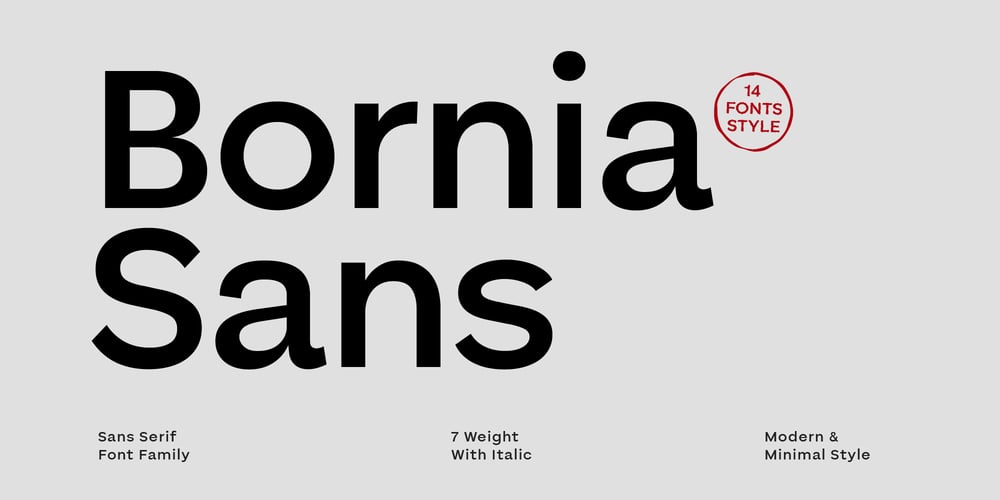
Bornia
Bornia font
Bornia Font Family was designed by abdul artega and published by Yukita Creative. Bornia contains 14 styles and family package options. Introducing the Bornia Sans Serif Modern Minimal Font Family – a typeface that exudes sophistication and simplicity. This is a font that exudes a contemporary feel and minimalist look that is sure to captivate your audience.With a variety of bold, Light-to-black variants, this font provides a lot of flexibility in use, giving your designs extra charm and appeal.